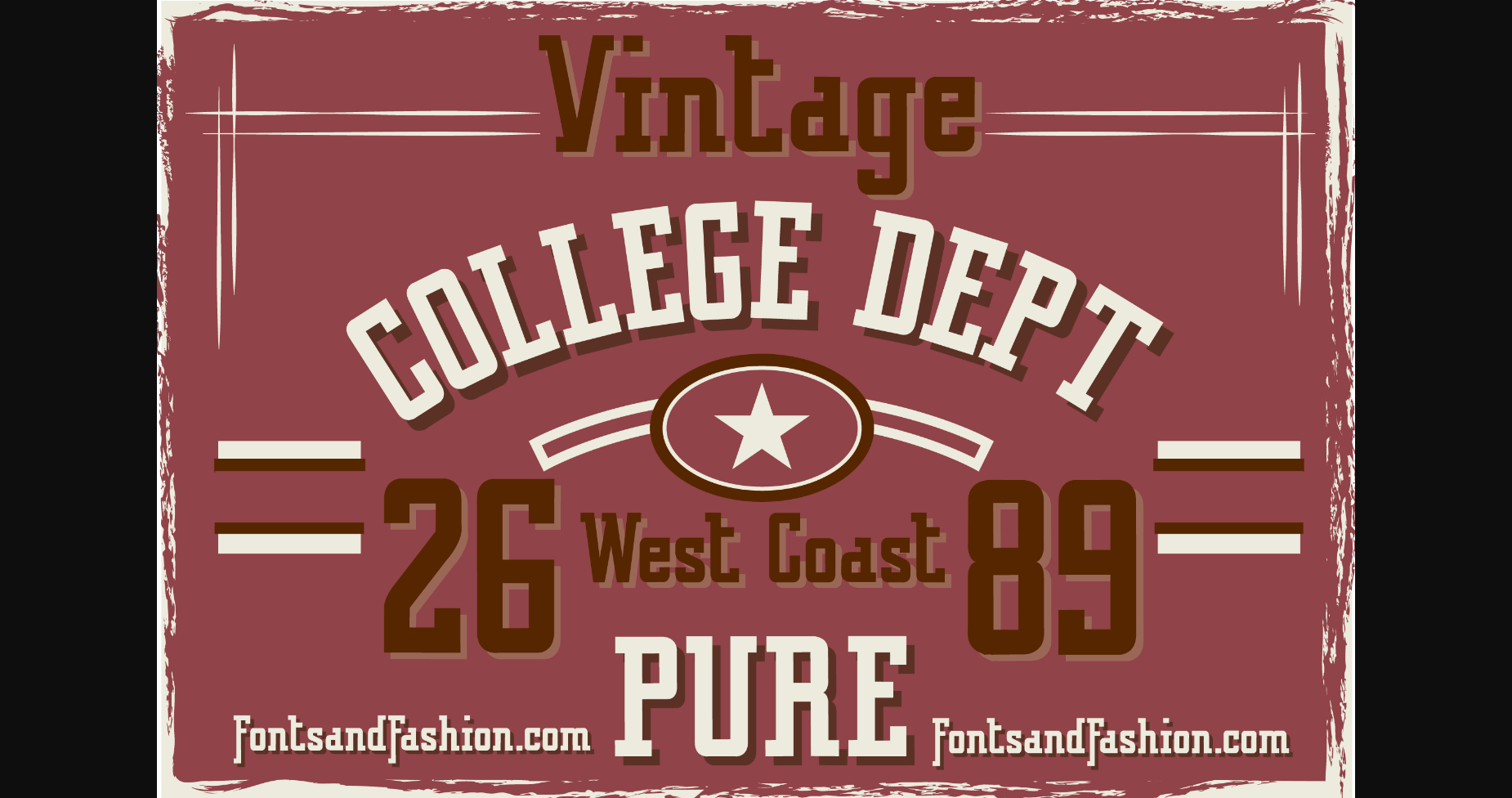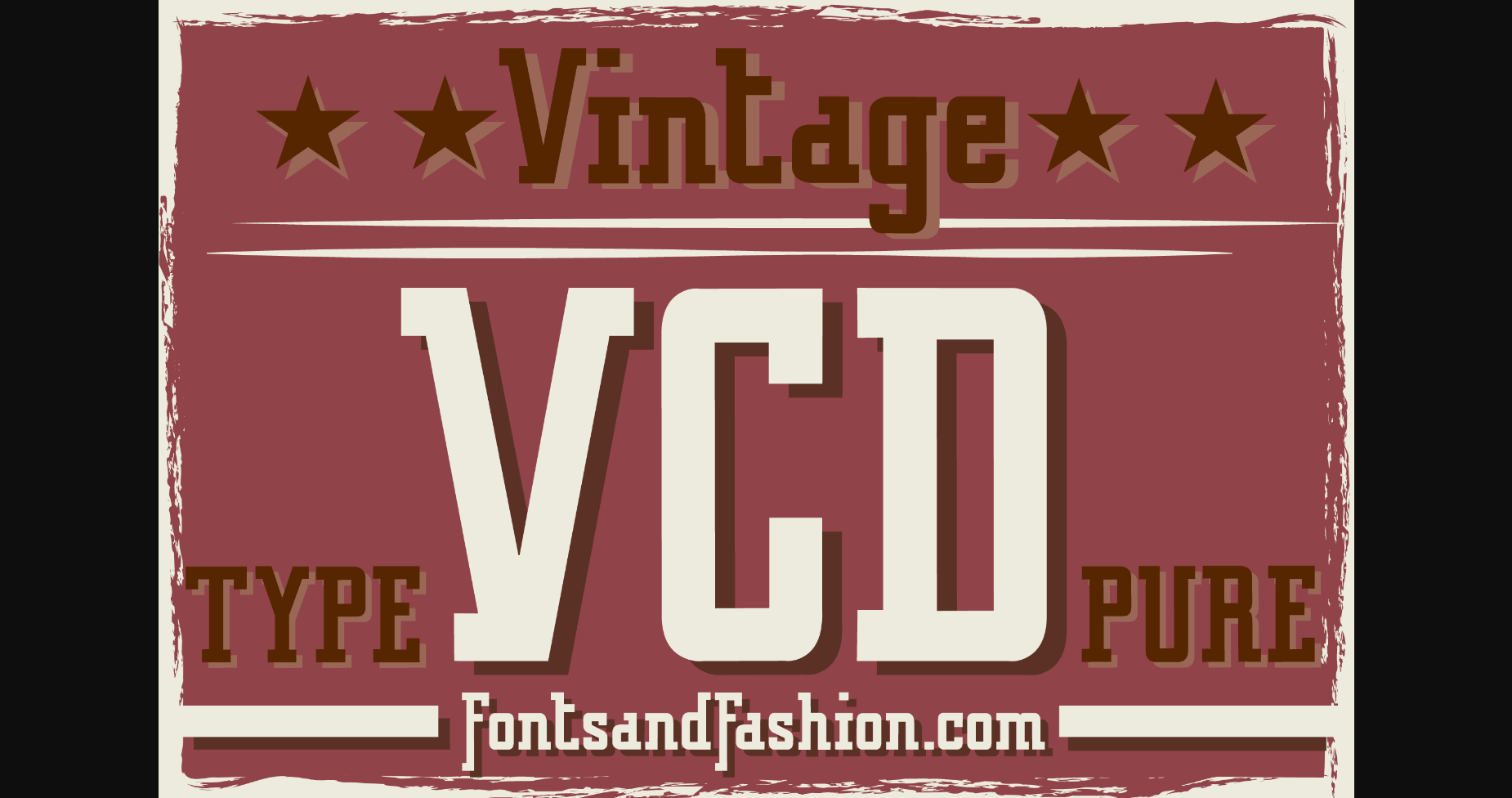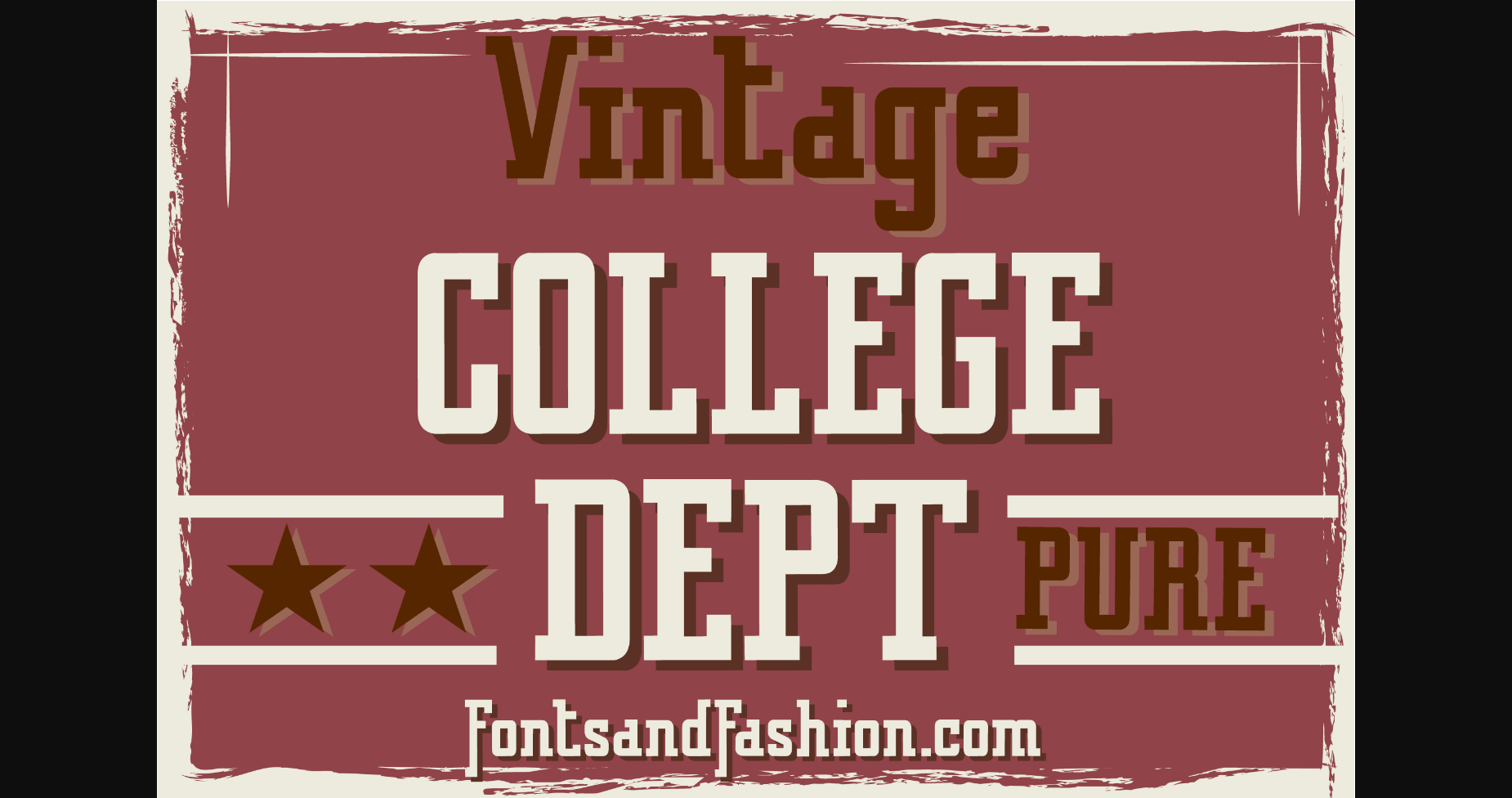
Vintage College Dept Pure
Vintage College Dept Pure: A Sporty Slab Serif Font
Vintage College Dept Pure is a clean and distinctive slab serif font that draws inspiration from university and high school sportswear lettering, as well as college football jerseys. This font captures the essence of classic collegiate aesthetics while adding a modern twist.
Key Features of Vintage College Dept Pure
• Clean Design: Offers a crisp and clear appearance, perfect for various design applications
• Sporty Character: Retains a decisive athletic feel, ideal for sports-related designs
• Strict and Rigid Style: Maintains the structured look of traditional collegiate lettering
• Quirky Elements: Incorporates unique tilts and details for added visual interest
Ideal Uses for Vintage College Dept Pure
This font’s unique characteristics make it particularly well-suited for:
• College and university branding
• Sports team logos and merchandise
• Athletic apparel designs
• Retro-inspired educational materials
• Vintage-style posters and advertisements
Comparison with Other Slab Serif Fonts
While Vintage College Dept Pure shares characteristics with other slab serifs like Tecnica Slab Family, its sports-inspired design sets it apart. Unlike more traditional slab serifs such as Osgood Slab, Vintage College Dept Pure offers a more dynamic and athletic approach to typography.
When incorporating Vintage College Dept Pure into your designs, consider the following tips:
• Use for headlines or short blocks of text to maximize its sporty impact
• Pair with simpler sans-serif fonts for body text to create contrast
• Experiment with different sizes to highlight the font’s unique quirks and tilts
• Consider using it in projects related to education, sports, or vintage-inspired designs
Vintage College Dept Pure is an excellent choice for designers looking to add a touch of collegiate nostalgia with a modern edge to their work. Its clean design and sporty character make it stand out in the world of typography. Whether you’re working on logo designs, creating eye-catching poster designs, or developing branding for educational institutions or sports teams, Vintage College Dept Pure offers the perfect blend of tradition and contemporary style.
Explore how Vintage College Dept Pure can bring a classic collegiate feel to your design projects. From university branding to sports merchandise, this font provides the tools to create impactful and memorable typography that captures the spirit of campus life and athletic pride.